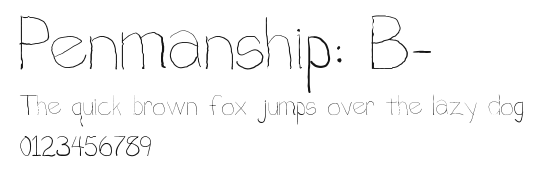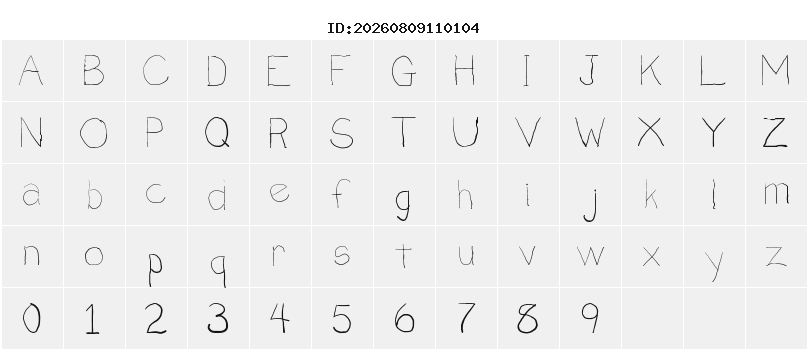
About Penmanship: B-.ttf
Penmanship: B-.ttf is a modern, elegant sans-serif font designed for ultimate readability and visual harmony. Perfect for branding, headlines, web design, and print materials.